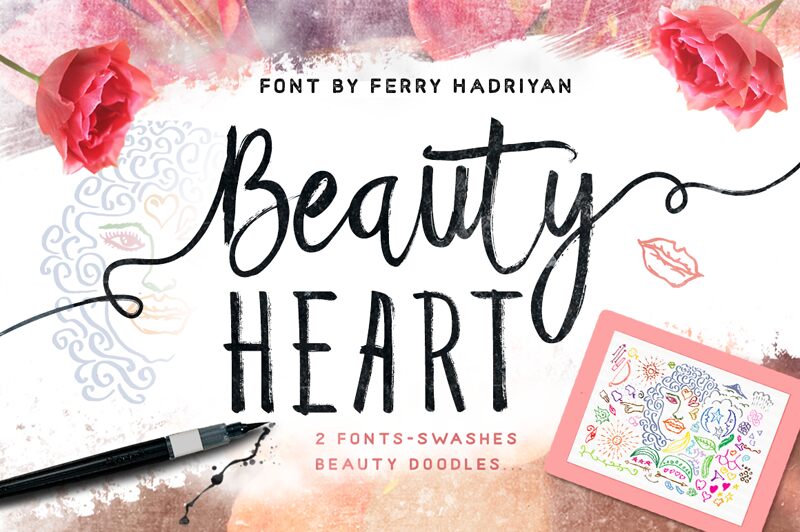
Beauty Heart Sans font from the Beauty Heart family captures a charming blend of playful elegance and artistic flair. With its brush style, this font features crisp, condensed strokes that provide a fresh and lively aesthetic, perfect for contemporary designs. Each letter exudes personality, making it both approachable and visually striking.
Its unique character makes it an ideal choice for projects ranging from logo design to invitations and promotional materials. The condensed nature allows for efficient use of space while maintaining readability, making it suitable for both print and digital media. Whether conveying a heartfelt message or creating eye-catching signage, Beauty Heart Sans enriches any design with its artistic charm.